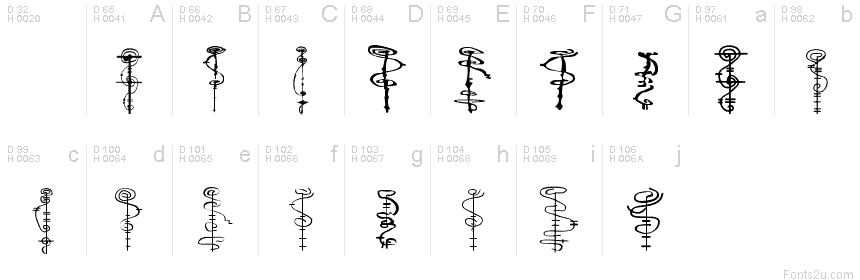
Two Old Vulcan by Tommy of Escondido is a free science fiction symbol font built from imagined Vulcan signs. Its forms mix slender vertical paths with compact hooks, loops, bars, and dots, giving the set a ceremonial, handwritten cast. Some signs are spare and linear.
Alien languages and interstellar ritual are its clearest subjects, making it useful for science fiction posters, game interfaces, and fan-made props. The narrow, irregular symbols resemble fragments of an unfamiliar writing system rather than familiar pictograms. On prop labels or digital screens, they can become in-world inscriptions and interface markers instead of ordinary lettering.